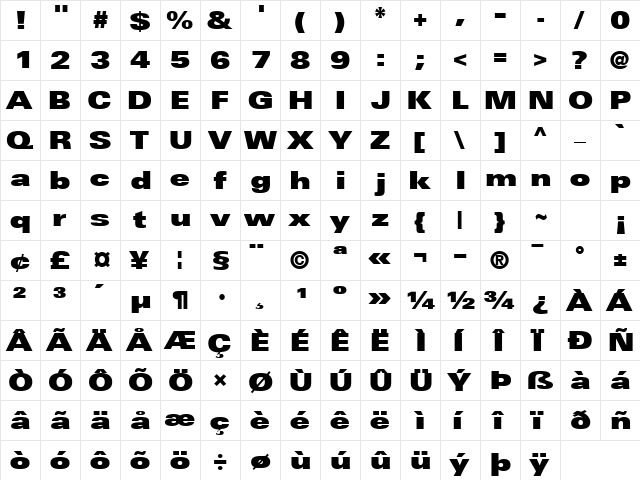
NovaUltraBlackExpSSK Regular
Design Context for NovaUltraBlackExpSSK Typeface
NovaUltraBlackExpSSK is a composed and adaptable typeface that performs quietly and consistently across a wide range of design contexts.